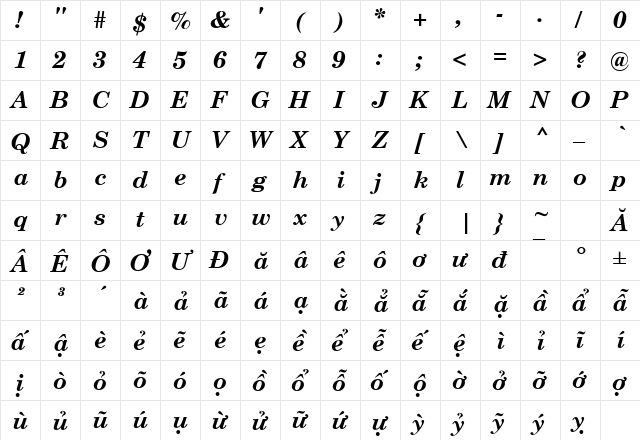
.VnCentury Schoolbook Bold Italic Font Preview
Design Context for .VnCentury Schoolbook Typeface
.VnCentury Schoolbook offers clean, dependable letterforms without strong stylistic allegiance, making it a practical choice for designers who need flexibility. Its italic angle brings a sense of urgency and motion to the letterforms. The heavy weight commands attention and anchors typographic hierarchies.